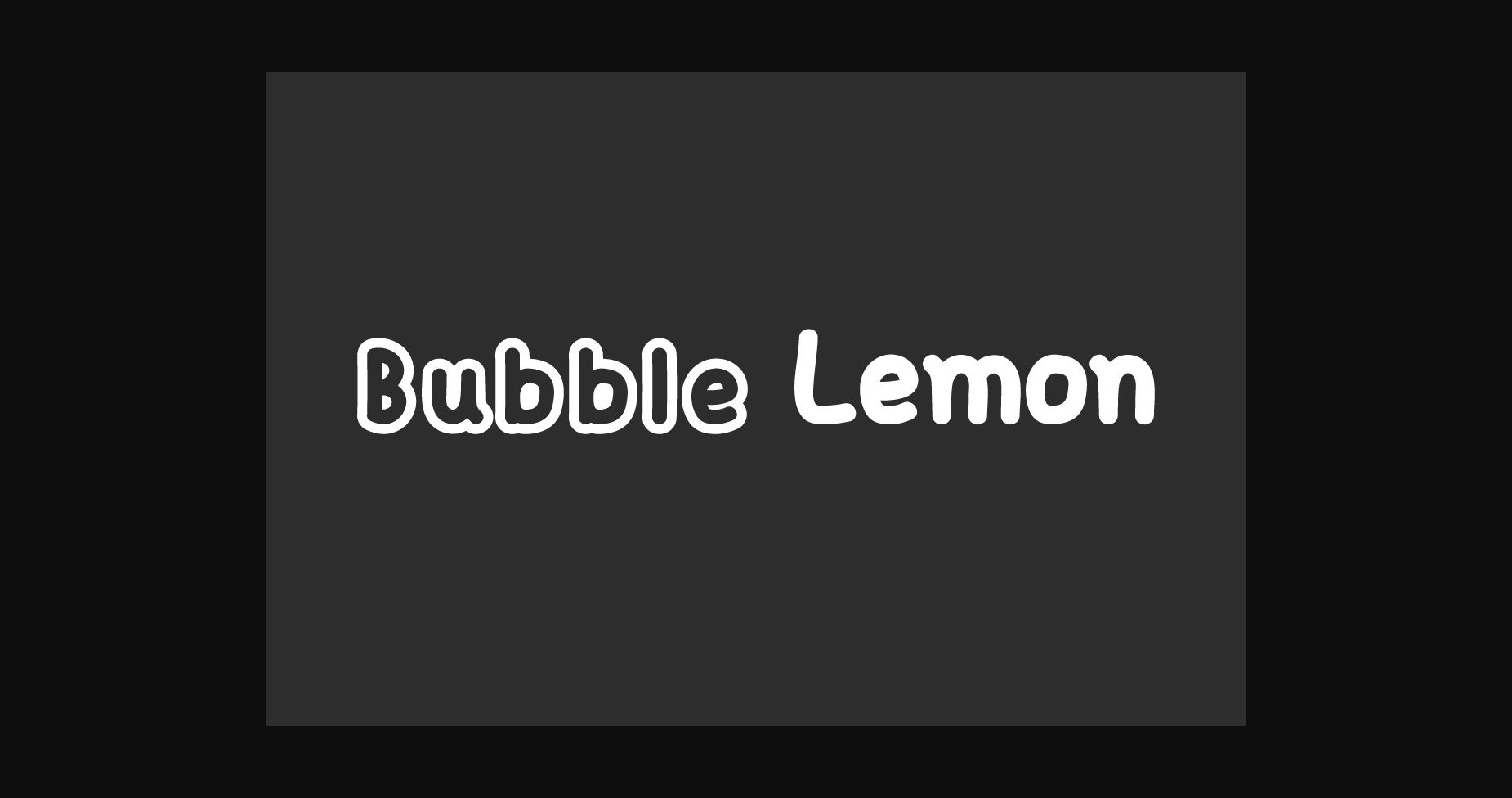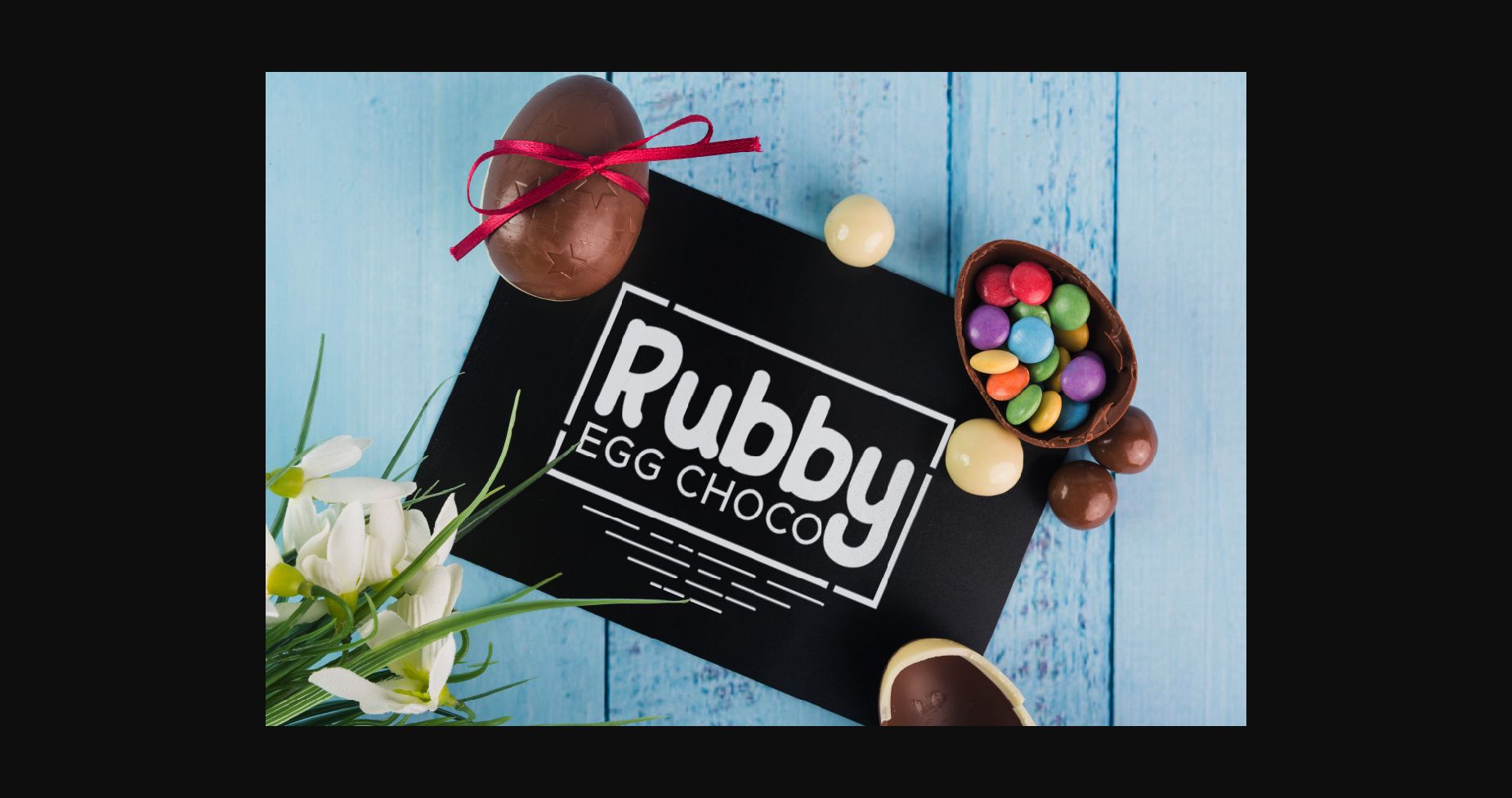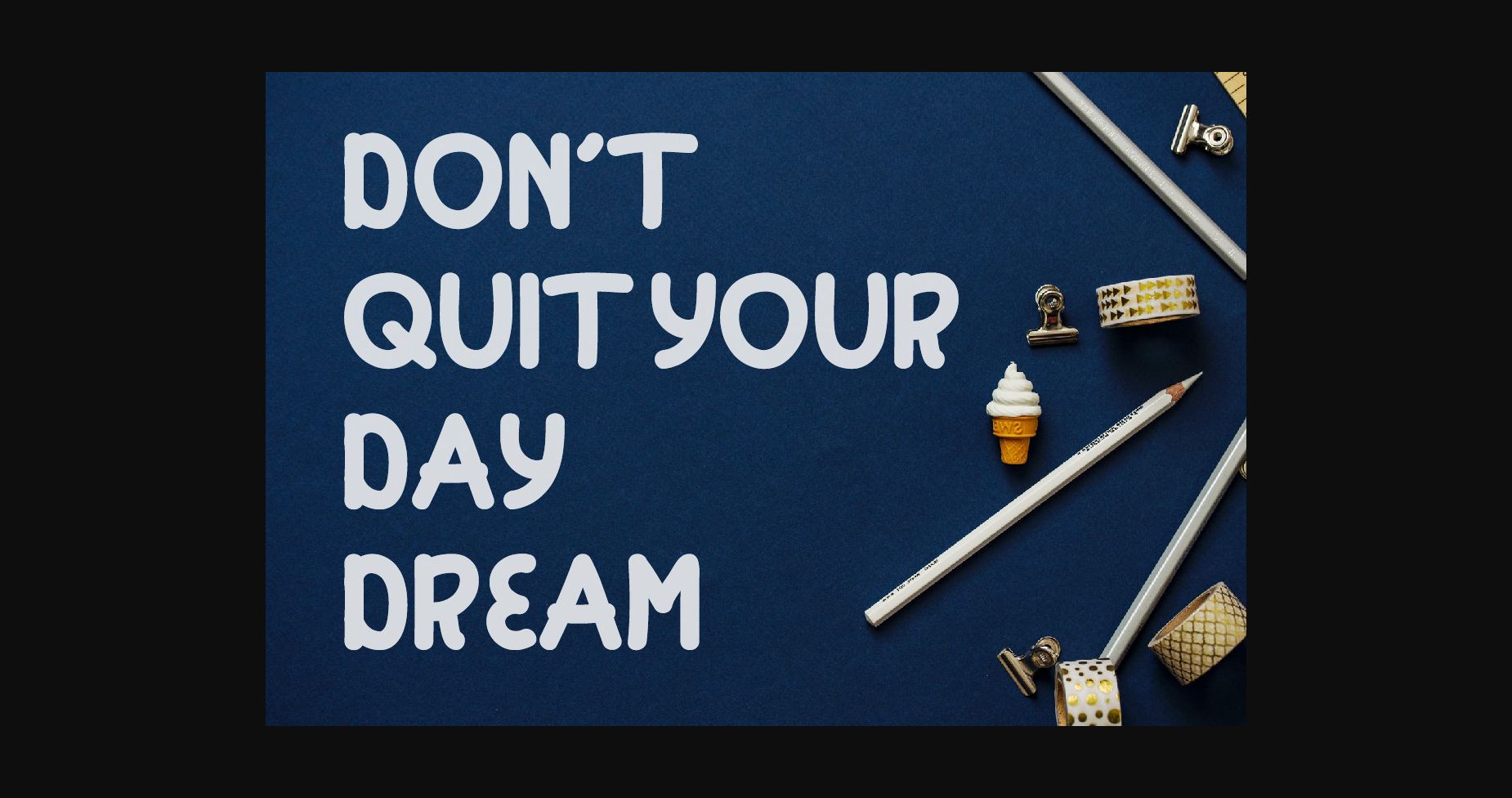
About Bubble Lemon Font
Bubble Lemon is a fun sans serif font with curvy shapes. Whether you’re working on a birthday invite or creating the next generation of superheroes, this font is perfect for you! Fresh and hip, while never taking itself too seriously. Retro and familiar, yet current and approachable. It’s like Comic Sans’ cooler younger brother without the social stigma. Carefully designed to work together in harmony. This one should make your designs instantly cool!